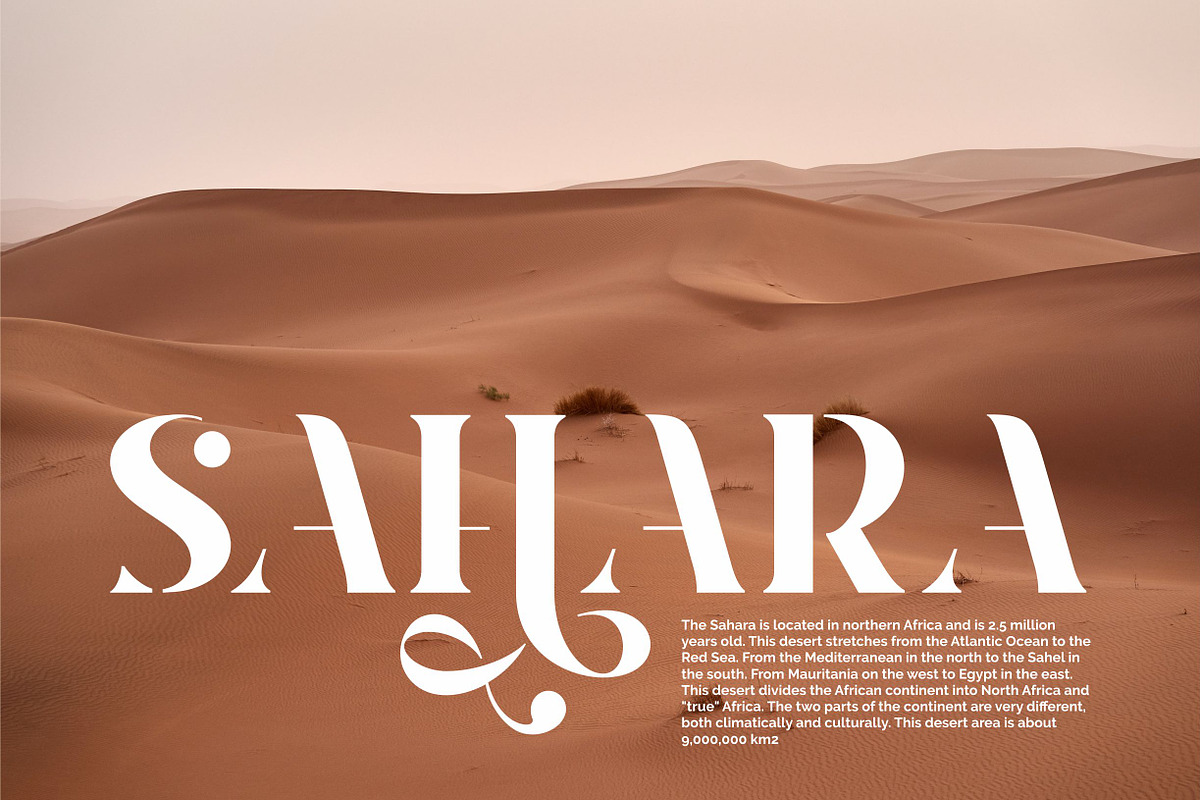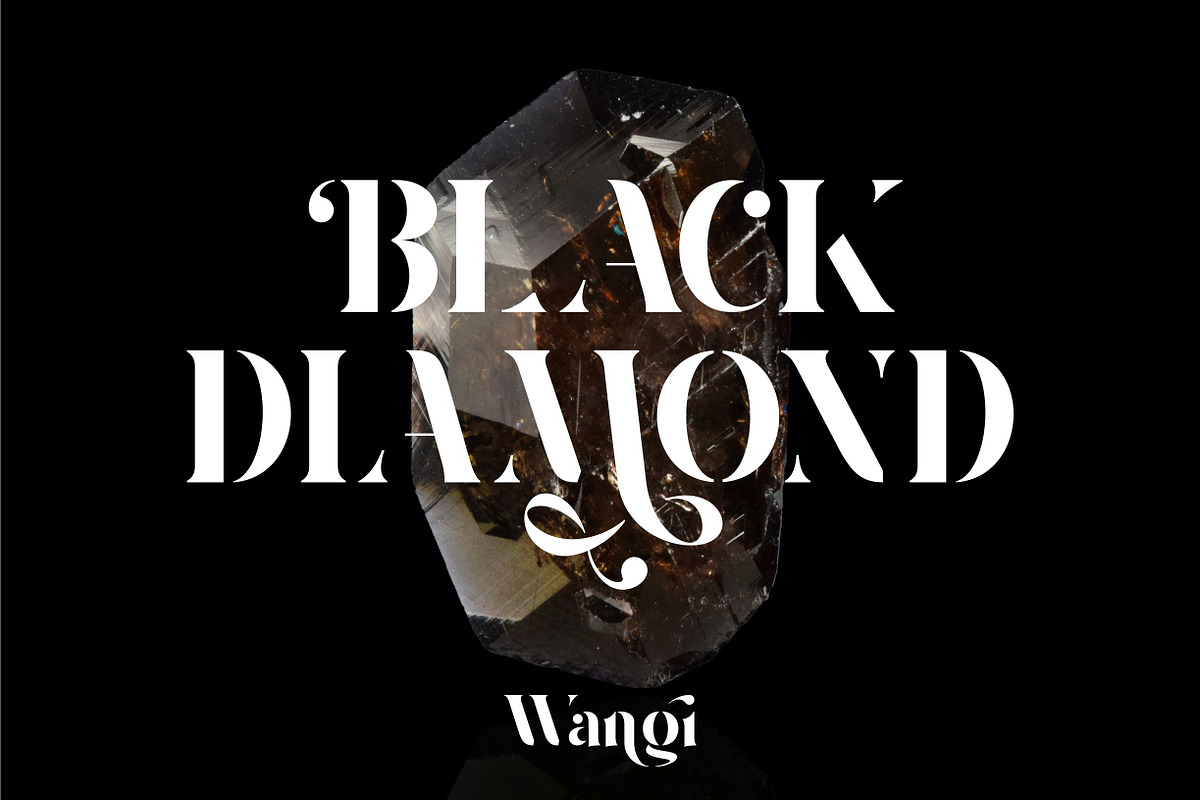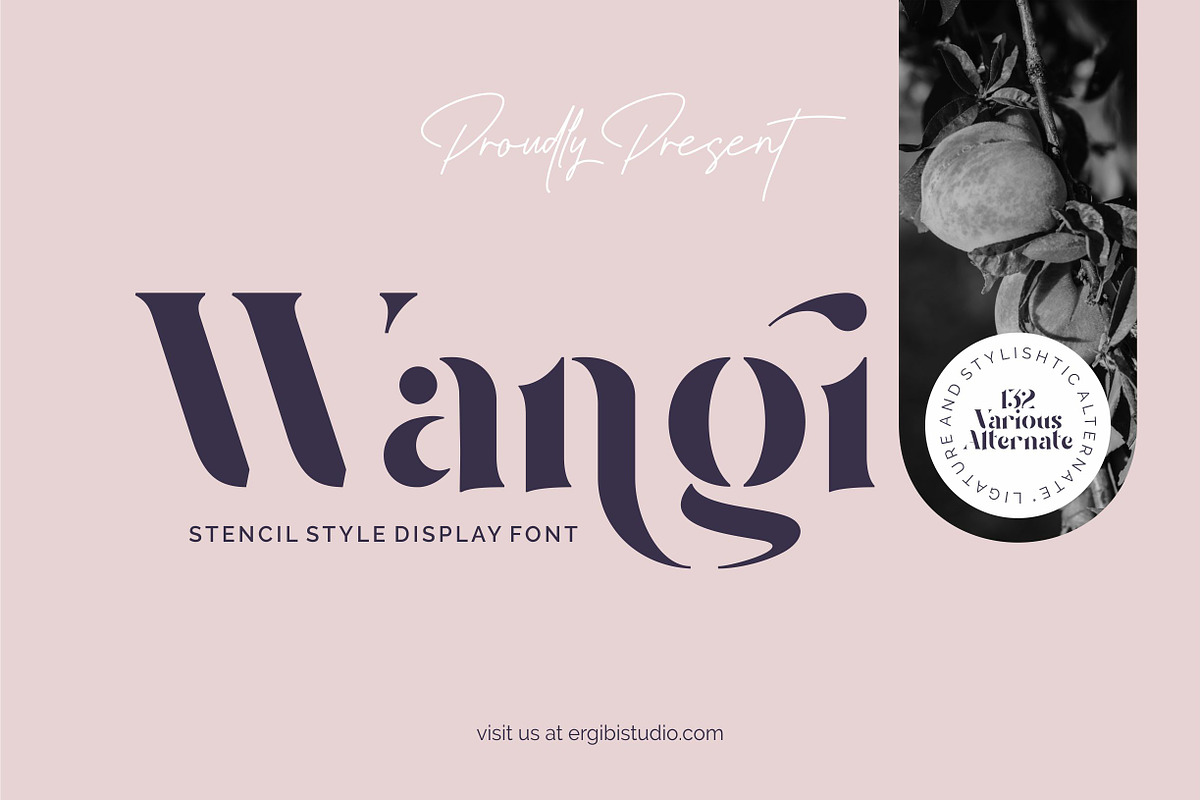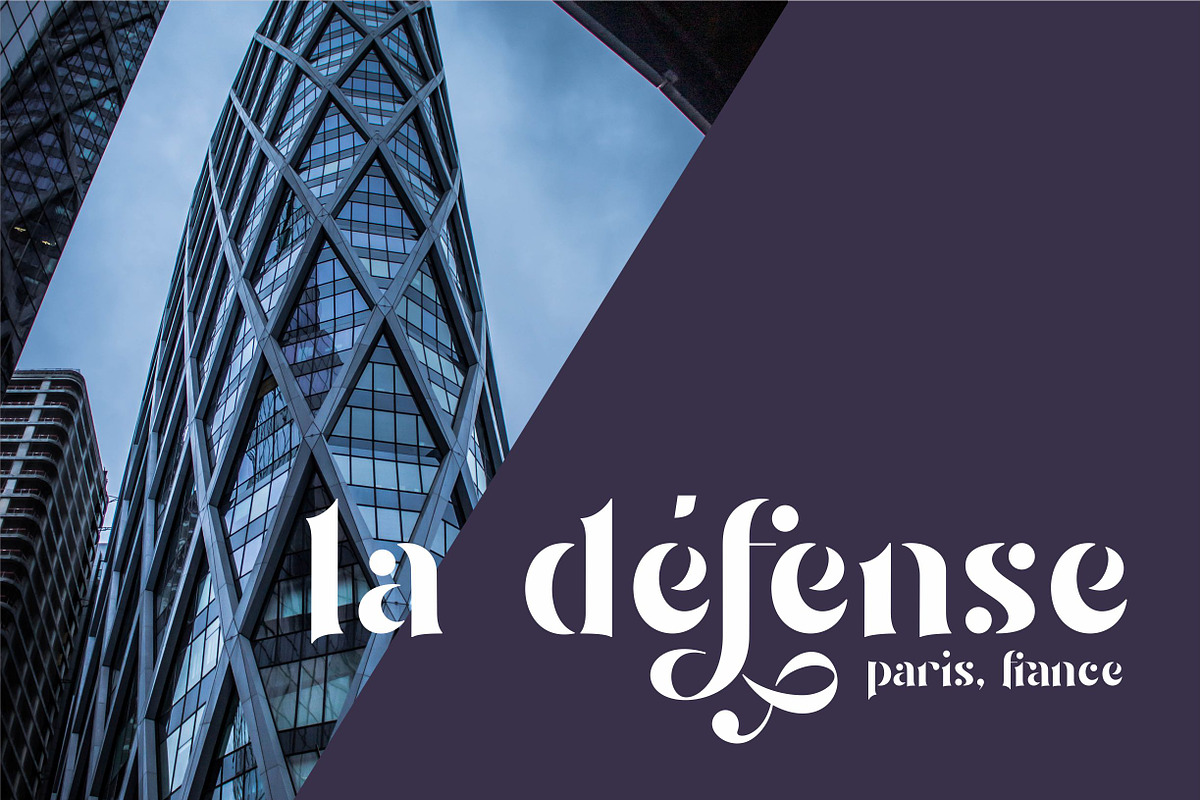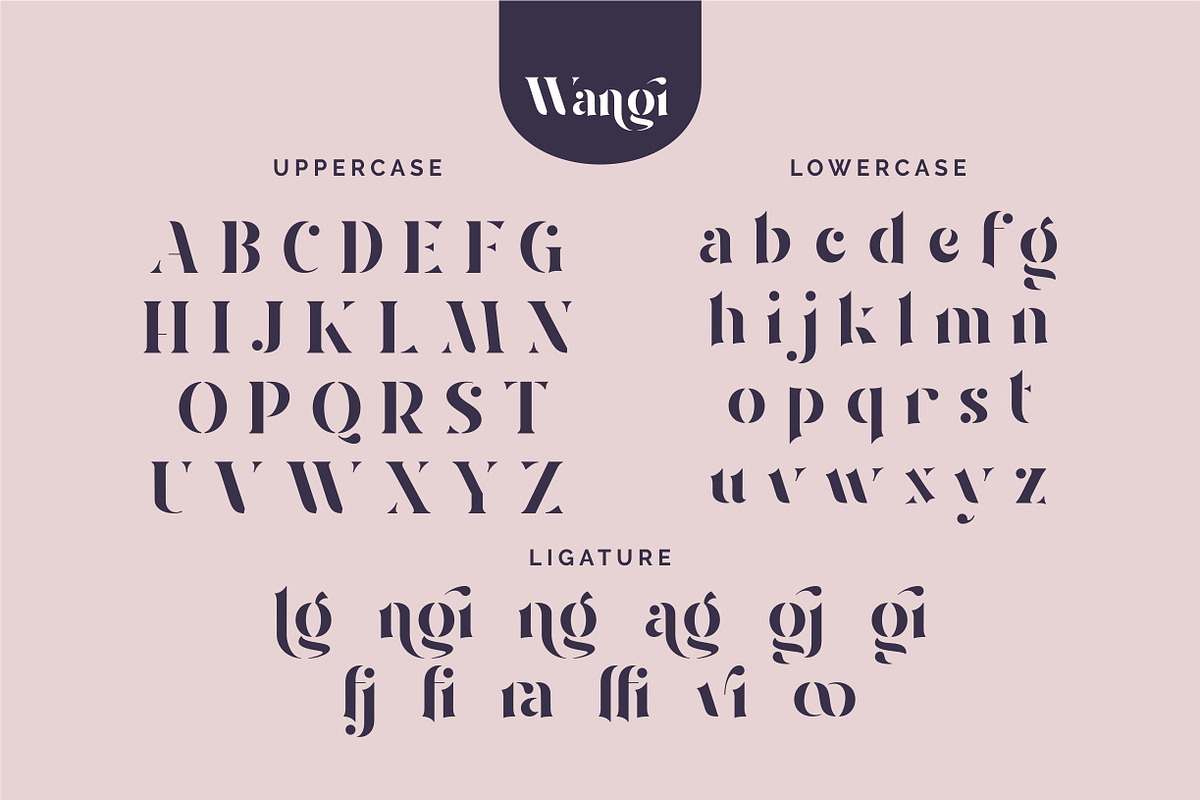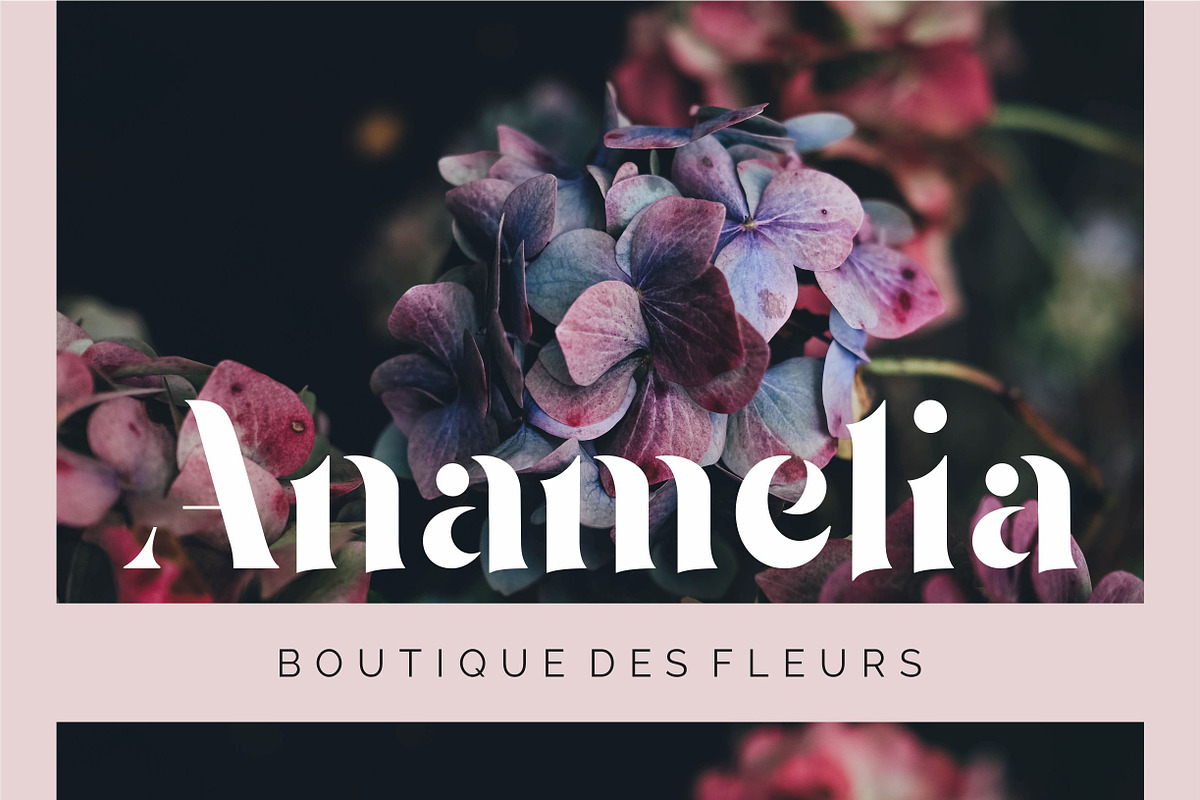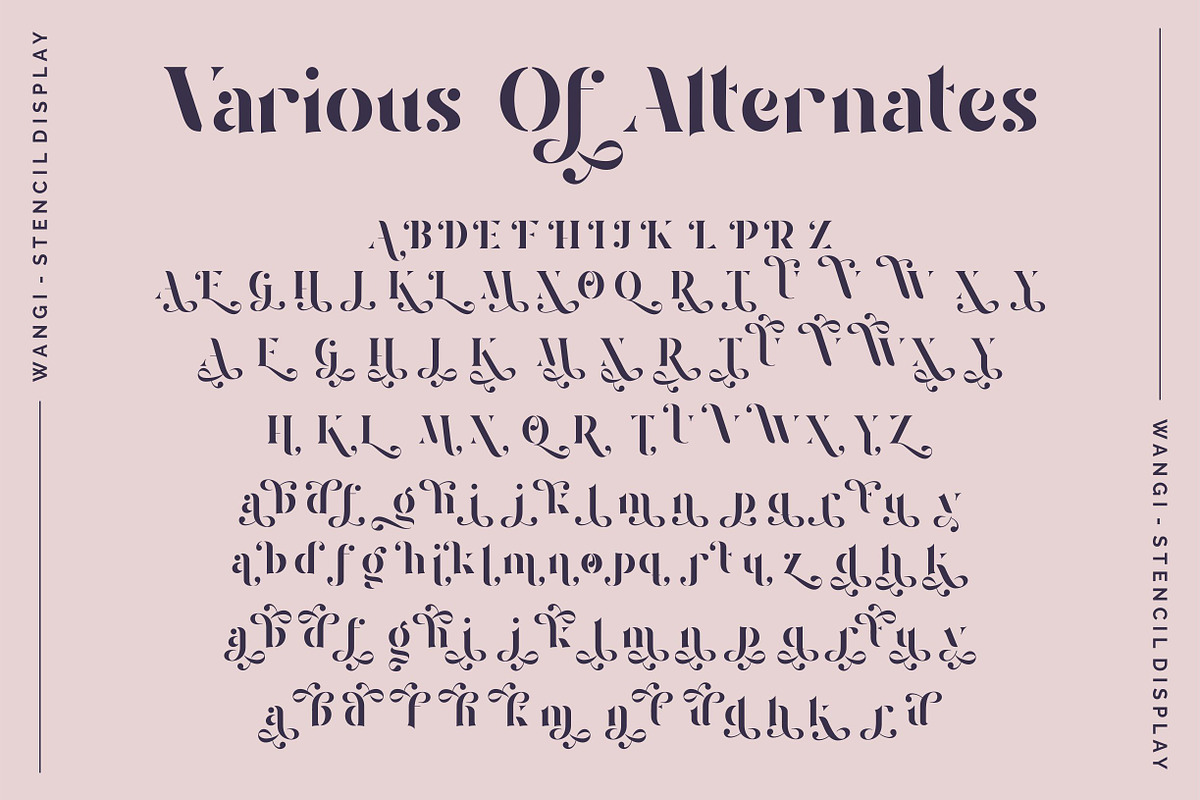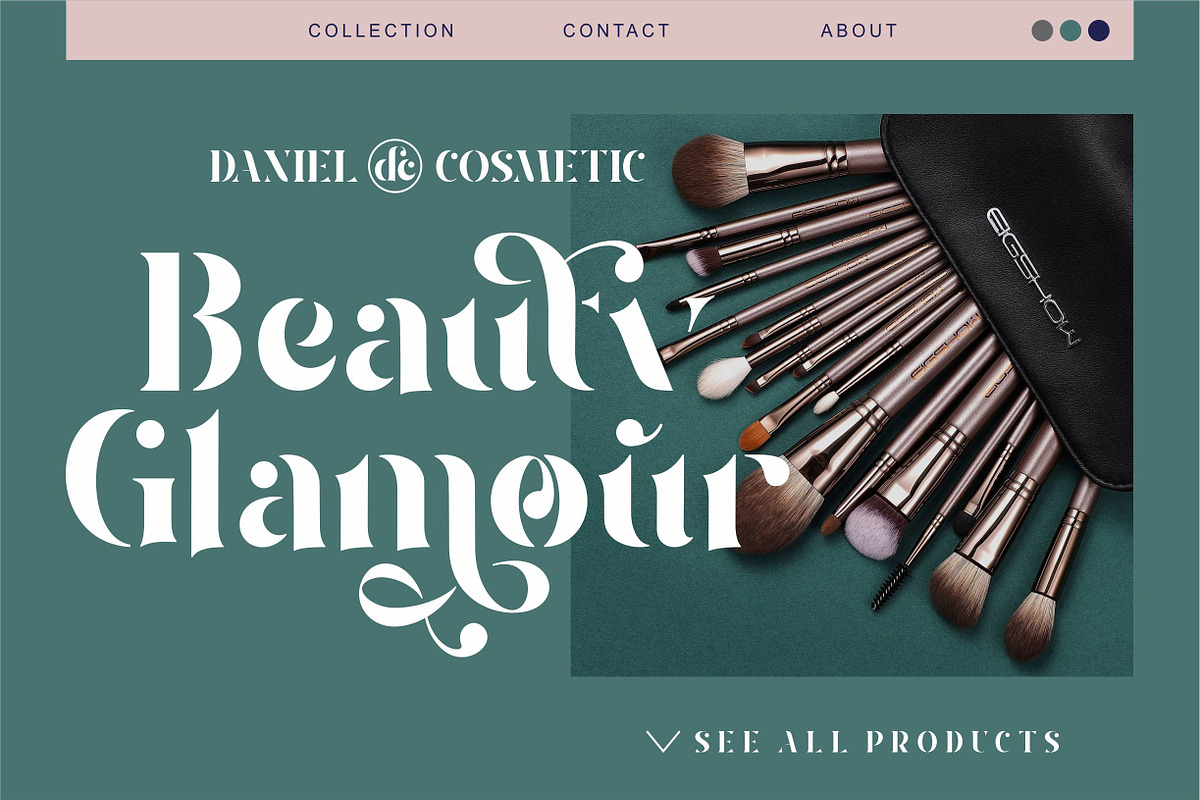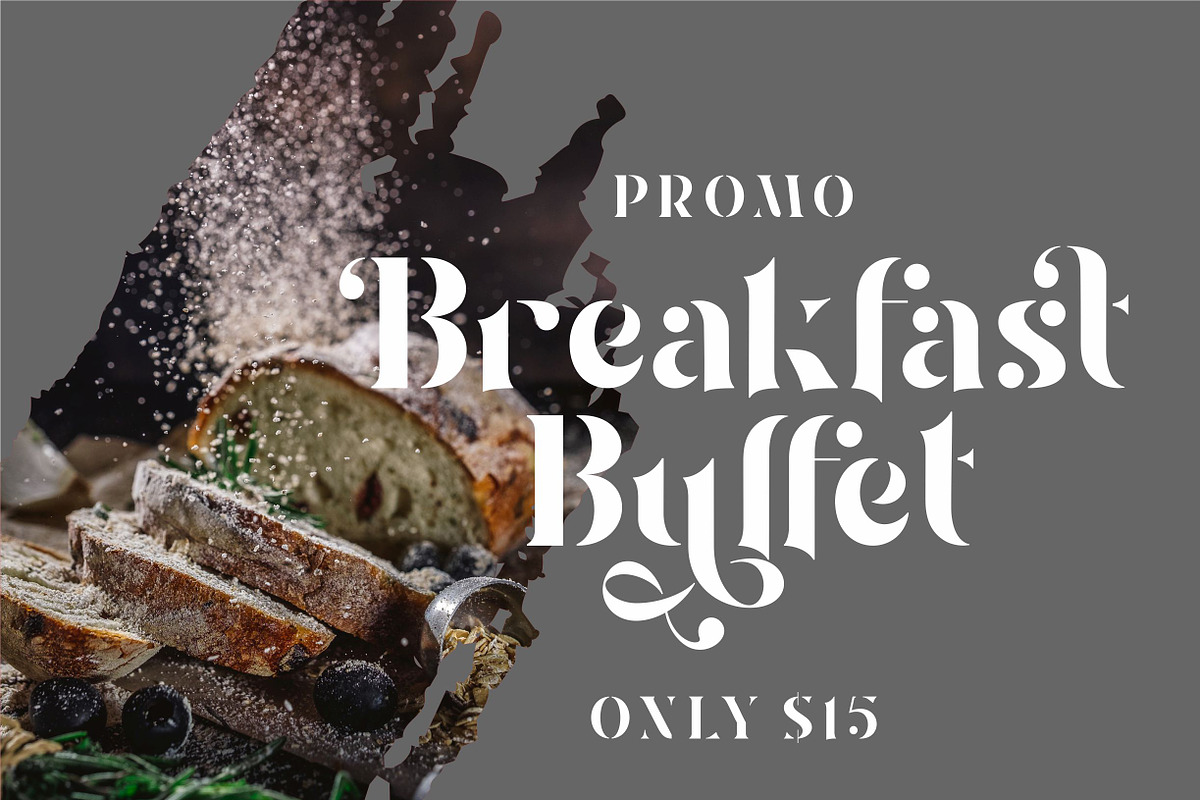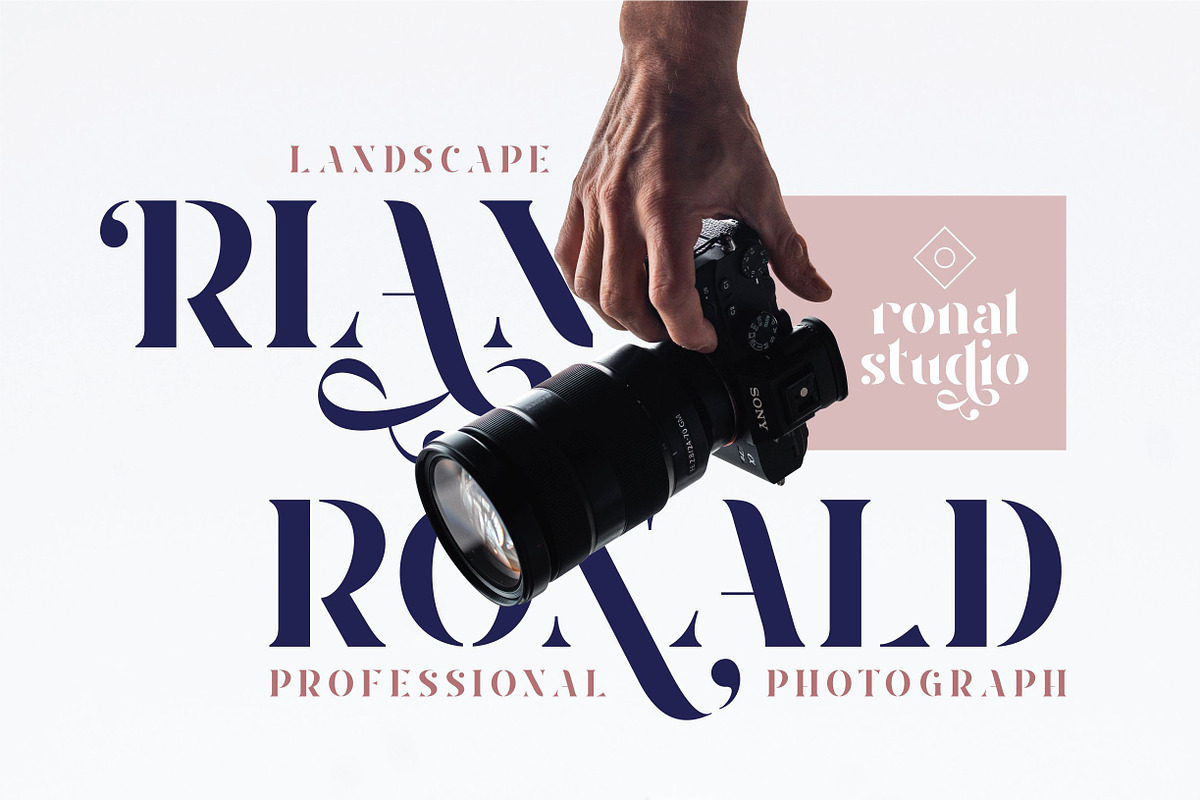
Wangi - Stencil Style
Wangi - Display Font, a stencil style typeface perfect for any type of logo, packaging, fashion, magazine, etc. Mantovans is cleanly designed. This is the best choice with more than 130+ alternative characters, so you can show more variations for the completion of your design